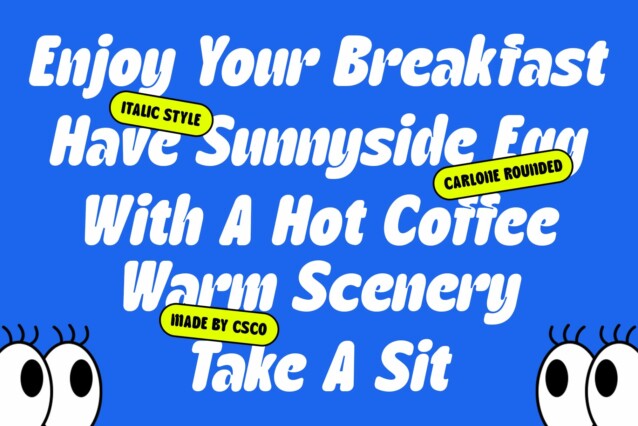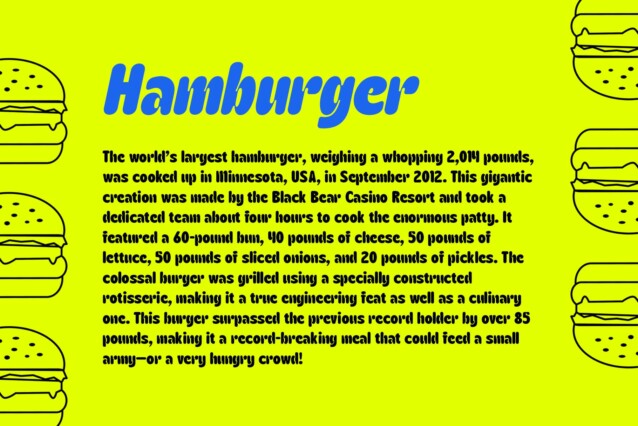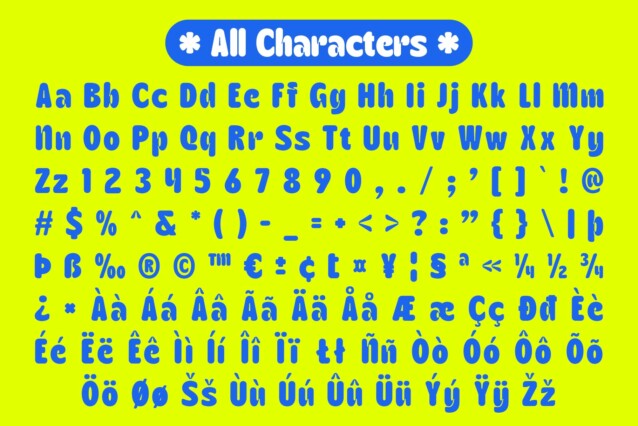
Carlone Rounded Font
Carlone Rounded Font is a modern sans-serif font that stands out with its thick, rounded forms. The bold, solid strokes create a striking visual impact, while the rounded edges introduce a sense of warmth and friendliness. This combination makes the font both powerful and approachable, perfect for designs that aim for a balance between professionalism and personality. Whether you’re designing for branding, digital interfaces, or advertising, Carlone Rounded ensures a contemporary look that is both strong and welcoming.